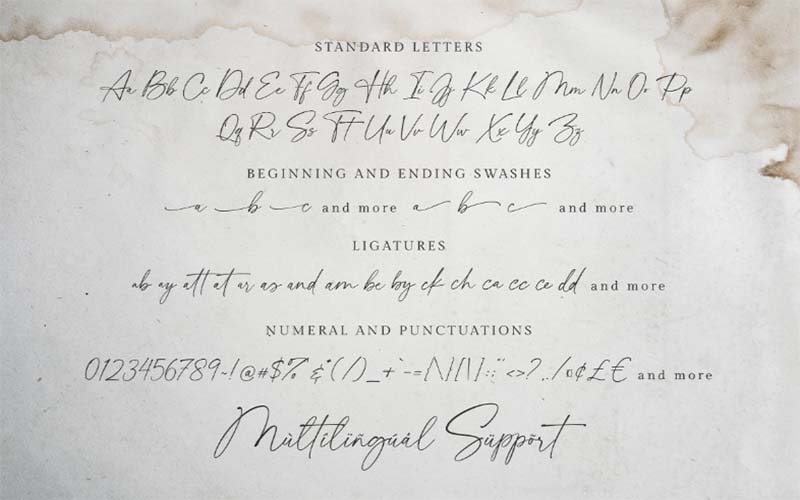
Segatha Font is an elegant handwritten script typeface that features a perfectly handwritten texture. EF Studio took charge of designing it and releasing it for the first time.
It is suitable for creating beautiful invitations letters, greeting cards, water-based paints, business portfolio layouts, website textual arrangements, cosmetics, fashion designing, and so on.
It would also be wise to use it for printing on textiles. Additionally, you can use this calligraphy typeface to develop a game cover design or as a better font pairing. Each letter has its versatile presentation.
Segatha Font
Take a look at the map images of this character, about which we added how this typing fee will change your design with its unique look. Choose the letters of your taste and the rags will look perfect for you.
Along with this font, its seven unique sans serif weights can also be a good pick as a good font pair. Because of these features, it will help to add a new and beautiful touch to your designs.